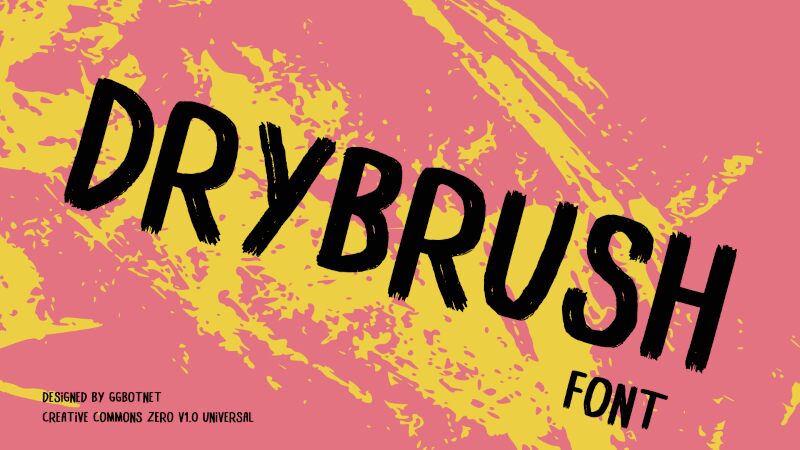
Drybrush font designed by GGBotNet is an energetic brush style font with artistic character qualities. Each letter within this edgy free font features a unique brush stroke defined by modern expressive shapes and rough texture. With its fierce rebellious look, the mighty letter structure within subtle underlying skeletons make Drybrush as powerful as its name.
Its usage is strongly recommended for creating artistic genius projects such as movie and games titles. Posters and posters with a strong sense of energy, vitality, and urgency can make use of it. Branding for physical products in energetic marketing campaigns may find it useful too.